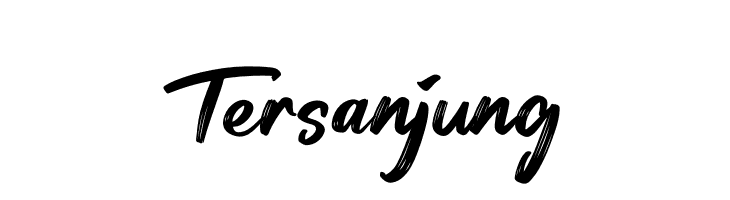
( Fonts by David Rakowski )
A tall, narrow font with a modern and elegant style.
( Fonts by Braille Institute )
A bold, modern sans-serif font focused on clarity and readability.
( Fonts by Braille Institute )
A highly legible typeface designed for clarity and readability.
A whimsical font with butterfly motifs integrated into each character.
A playful, handwritten script font with a modern and dynamic style.
A bold, expressive script font with a hand-painted, modern calligraphy style.
A lively, expressive handwritten font with fluid, dynamic strokes.
A bold, geometric font with a modern and industrial style.
A modern, condensed font with high contrast and sleek, vertical design.
A playful and whimsical font with rounded, smooth letterforms and consistent stroke width.